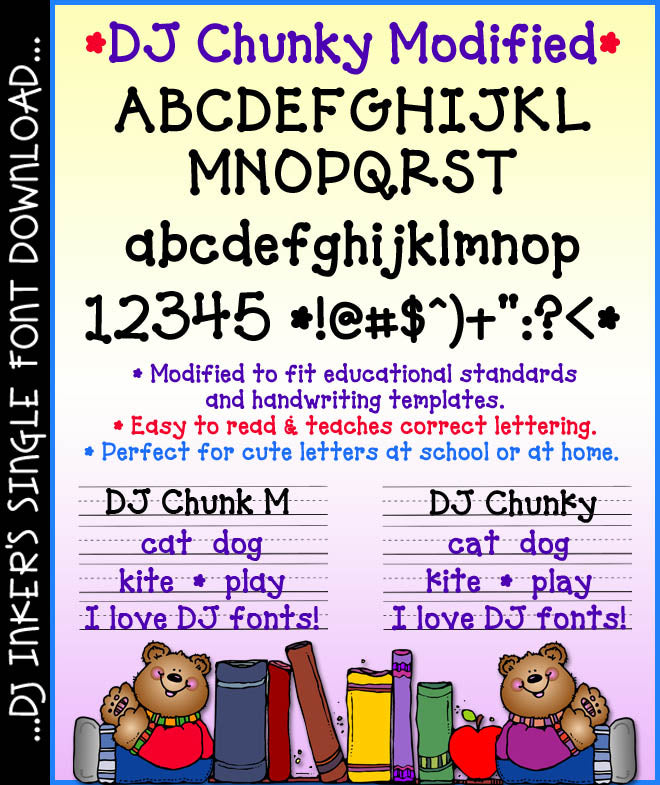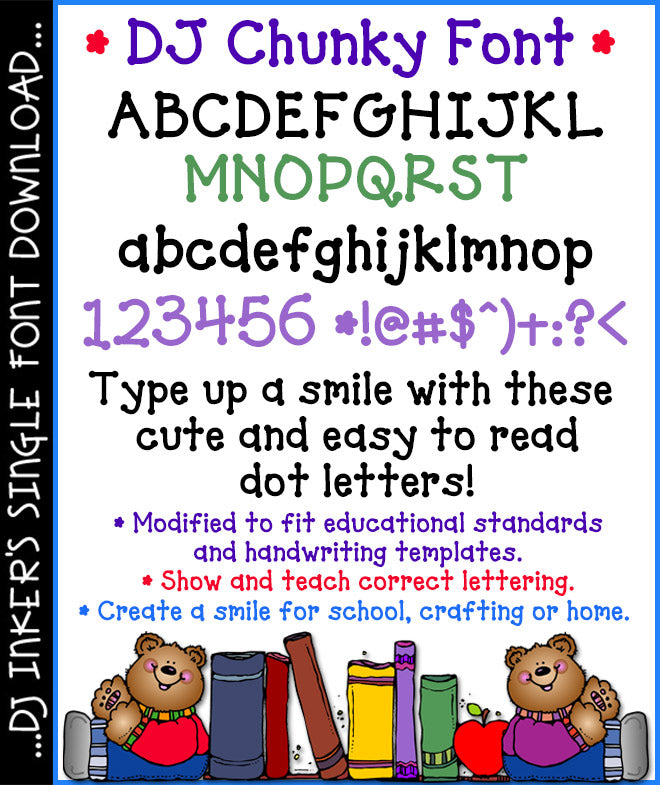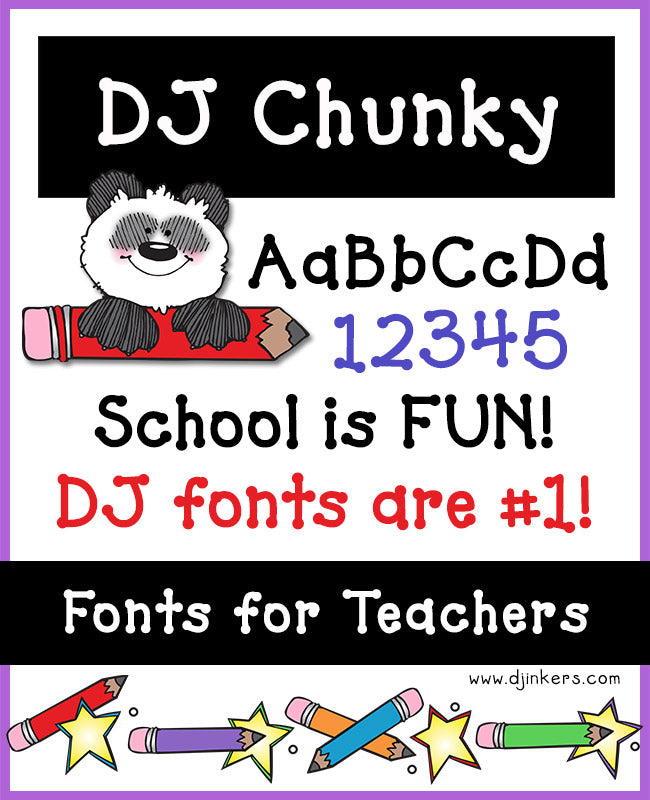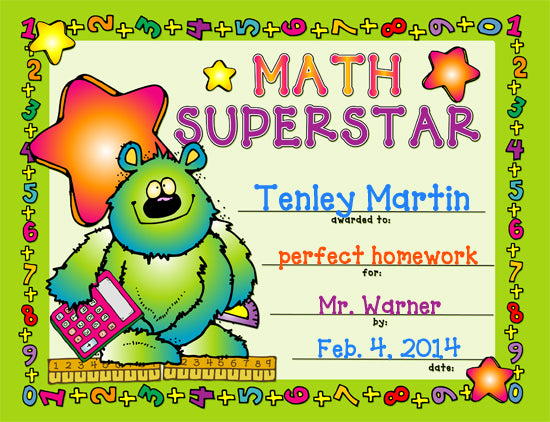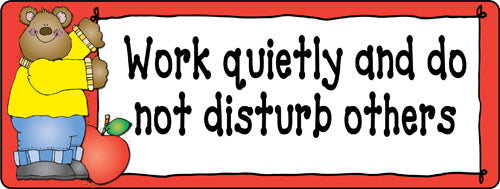
Cute dot letter font for teachers, school, kids, crafts and more by DJ Inkers
DJ Chunky Font - Dot Lettering Download
Cute dot letter font for teachers, school, kids, crafts and more by DJ Inkers
DJ Chunky Font - Dot Lettering Download
DJ Chunky is the perfect dot letter font for preschool and kindergarten teachers! You can make any project look cute and fun in a snap. :) Plus, the hand-written letters are bold, easy to read and look great in any size or color. In fact, it's one of our most popular fonts at DJ Inkers!